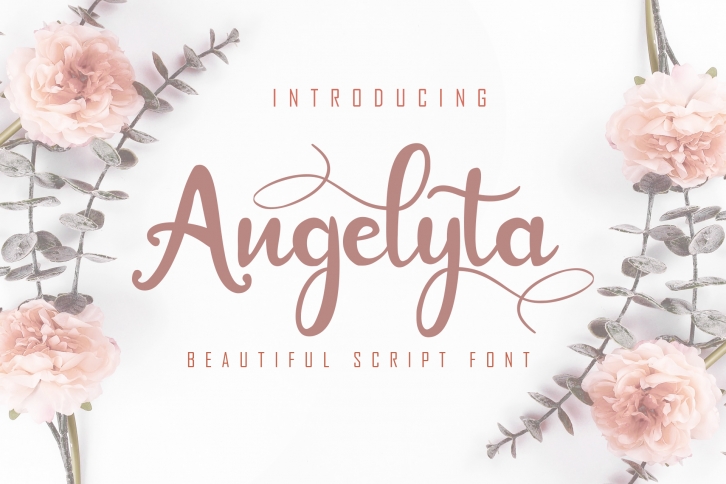
Angelyta script is a trendy and unique font with an authentic style. It was designed by SkiillerStudio and it's a great choice for creative people who need such a font. It was released on September 2, 2019 and the file size is 4.43 MB. Angelyta script will add an organic vibe to any design idea!